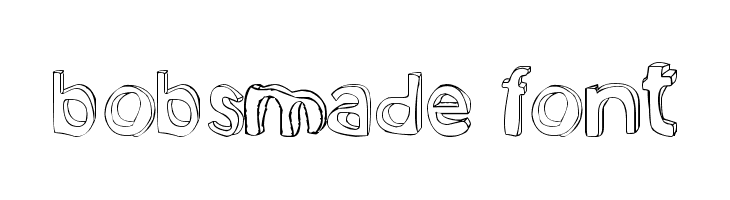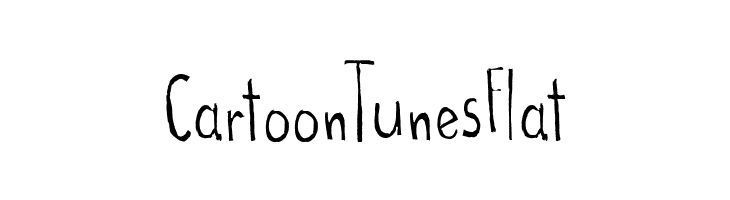
Chaque police phare se distingue par équilibre, lisibilité et polyvalence. Vous trouverez des sans‑serifs modernes, des scripts élégantes, des serifs vintage et des displays minimalistes.
A bold, italic font with a dynamic and modern style.
A bold, geometric font with thick strokes and sharp angles, ideal for impactful designs.
A bold, graffiti-inspired font with angular, dynamic characters.
A bold, expressive handwritten script with dynamic strokes and a brush-like texture.
A digital-inspired font with segmented, geometric characters.
A bold, distressed font with a vintage carnival or horror theme.
A bold, modern font with geometric shapes and rounded corners.
A bold, modern slab serif font with a geometric and industrial feel.
A playful font with characters featuring small arms and hands, perfect for humorous and creative projects.
A playful, hand-drawn font with sketch-like strokes and artistic flair.
A bold, geometric font with thick strokes and a modern design.
A playful, handwritten font with whimsical and elegant characteristics.
A bold, hand-drawn font with an organic, playful style.
A playful, bold font with rounded, hand-drawn letterforms.
A playful, handwritten font with elegant loops and curves.
A playful and elegant script font with flowing, cursive letterforms.
A bold, angular font with sharp edges and a modern aesthetic.
A bold, playful font with rounded edges and a whimsical style.
A bold, angular font with sharp geometric lines and a dynamic style.
Cartoon animal illustrations form each character in a humorous, decorative style.
Ornate, architectural column illustrations with classical detailing.
A bold, flowing script font with elegant cursive letterforms.
A bold, brush-style font with a dynamic and artistic flair.